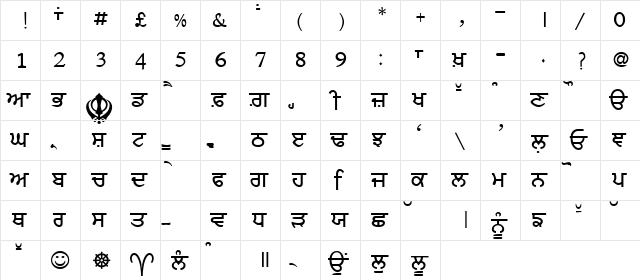
Muna Normal
Design Context for Muna Typeface
Muna is a composed and adaptable typeface that performs quietly and consistently across a wide range of design contexts.